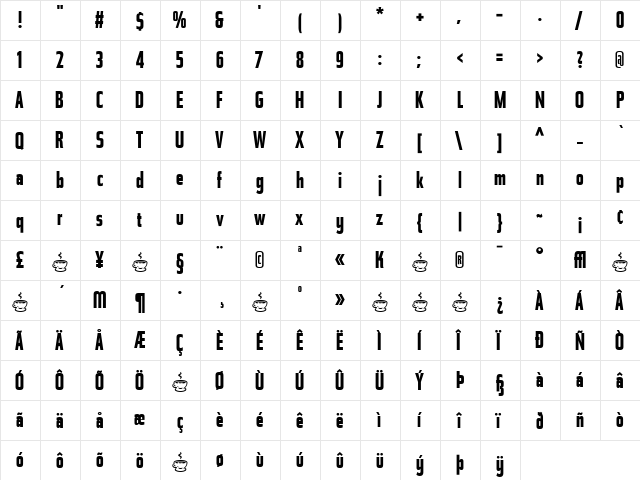
Tasse Bold
Design Context for Tasse Typeface
Tasse is a composed and adaptable typeface that performs quietly and consistently across a wide range of design contexts. The heavy weight commands attention and anchors typographic hierarchies.
Pro Tip: Use Tasse in both headline and body roles to test its range before committing to a single application.